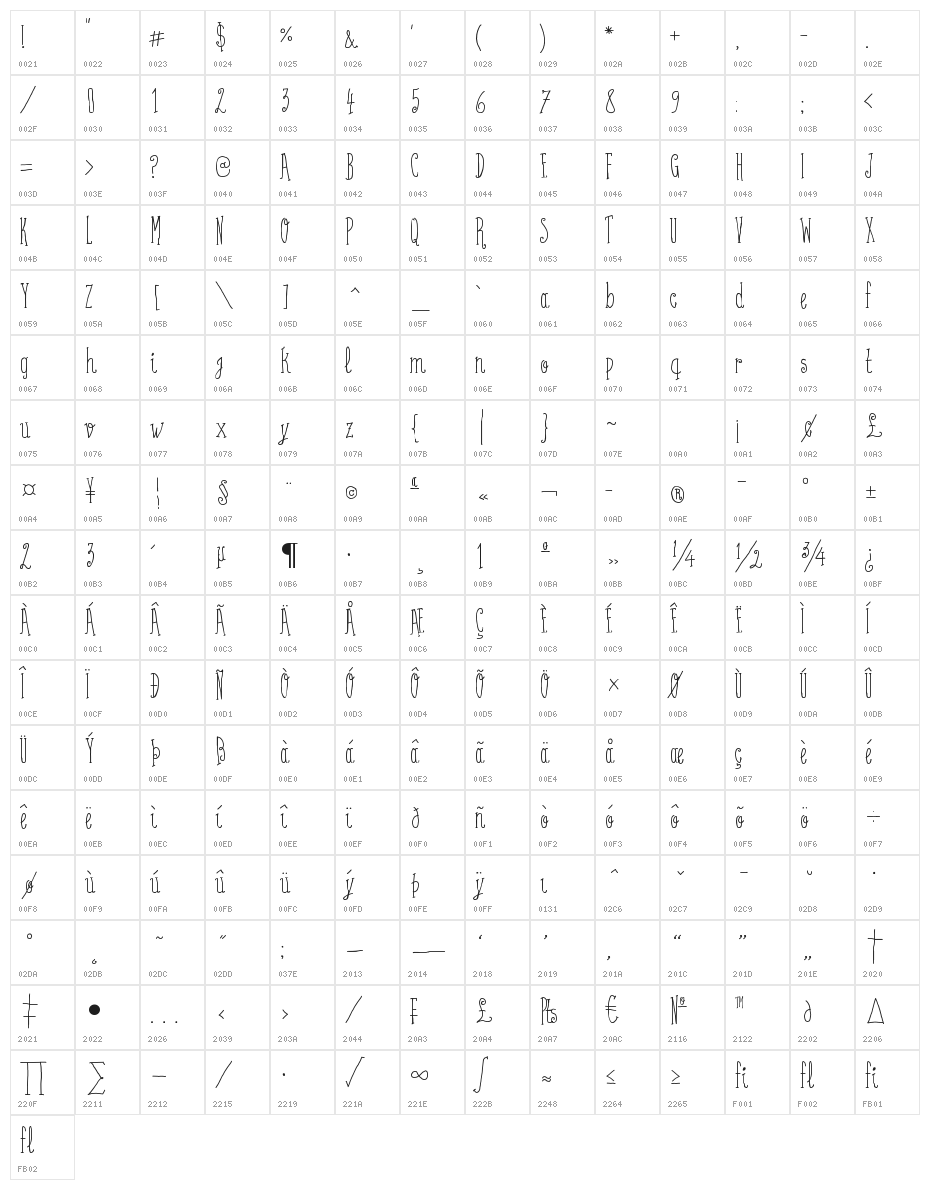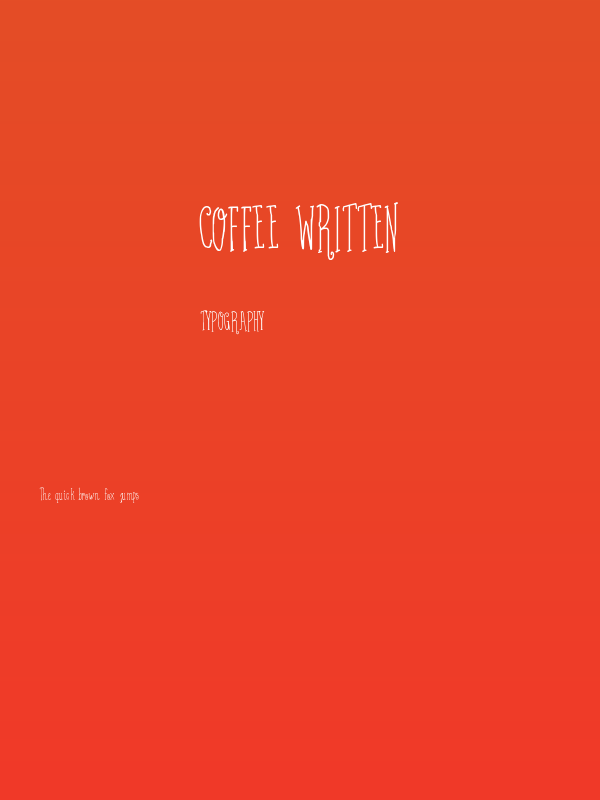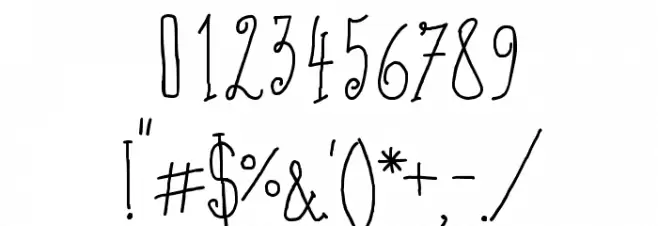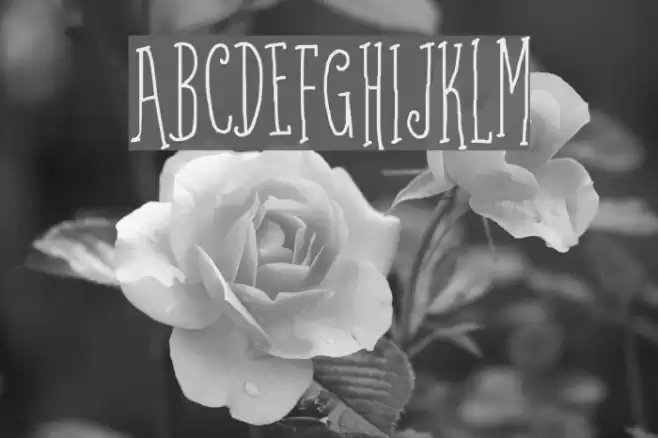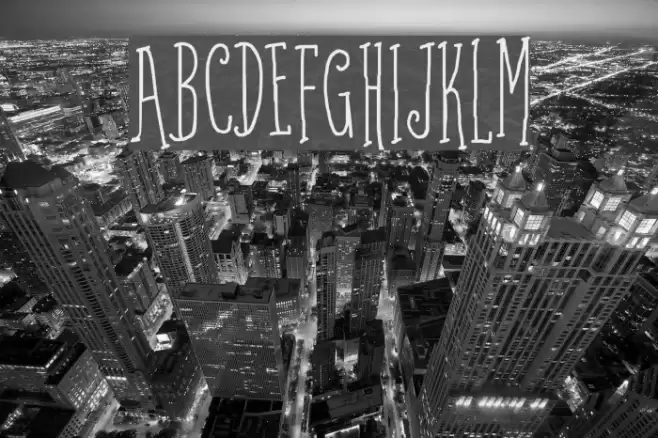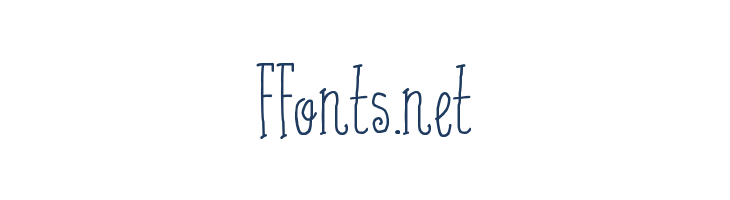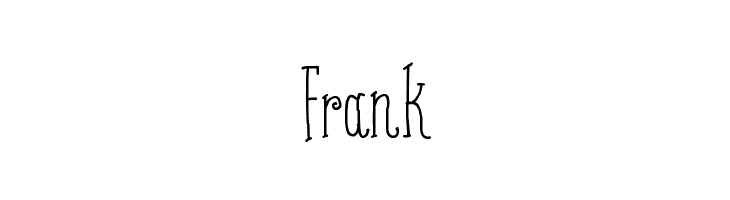
Coffee Written Font
Coffee Written Description
This font features a whimsical, handwritten style with tall, narrow characters that convey a playful and informal tone. The strokes are uneven, adding a touch of charm and personality. The uppercase letters are slightly taller than the lowercase, with a consistent slant that gives the font a cohesive look. Numbers and special characters maintain the same quirky style, making it versatile for various creative projects. The font's unique character spacing and irregular line thickness contribute to its distinctive appearance, making it ideal for designs that require a personal touch.
| Proposed Projects | Ideal for greeting cards, children's books, playful branding, and creative posters. |